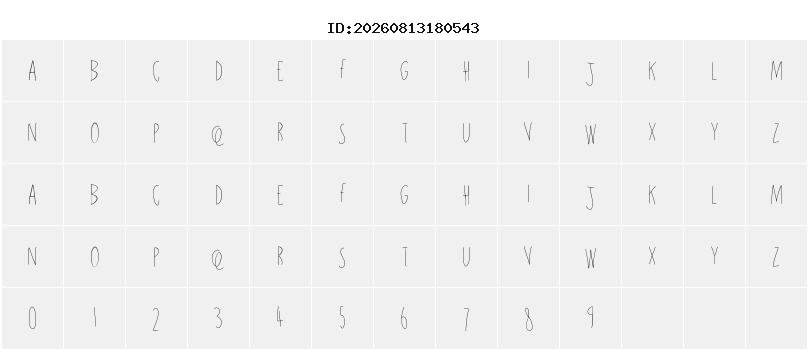
sundrop Preview
About sundrop.ttf
sundrop.ttf is a modern, elegant sans-serif font designed for ultimate readability and visual harmony. Perfect for branding, headlines, web design, and print materials.